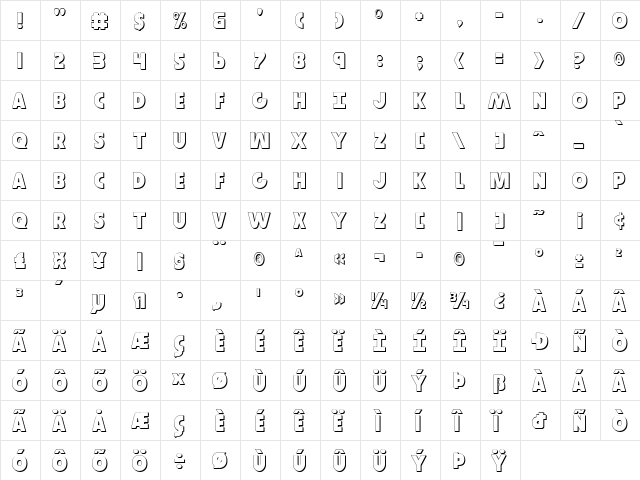
Governor Shadow Shadow
| Style | Shadow |
Design Context for Governor Shadow Typeface
Governor Shadow is built around its visual character rather than neutral utility — its distinctive forms are designed to make an impression at display sizes.
Font Pairing: Pair with a clean neutral sans-serif for body copy to let Governor Shadow's character lead without overwhelming the composition.
Pro Tip: Treat Governor Shadow as the centrepiece of your typographic hierarchy. One strong heading set in a decorative face can carry an entire layout.